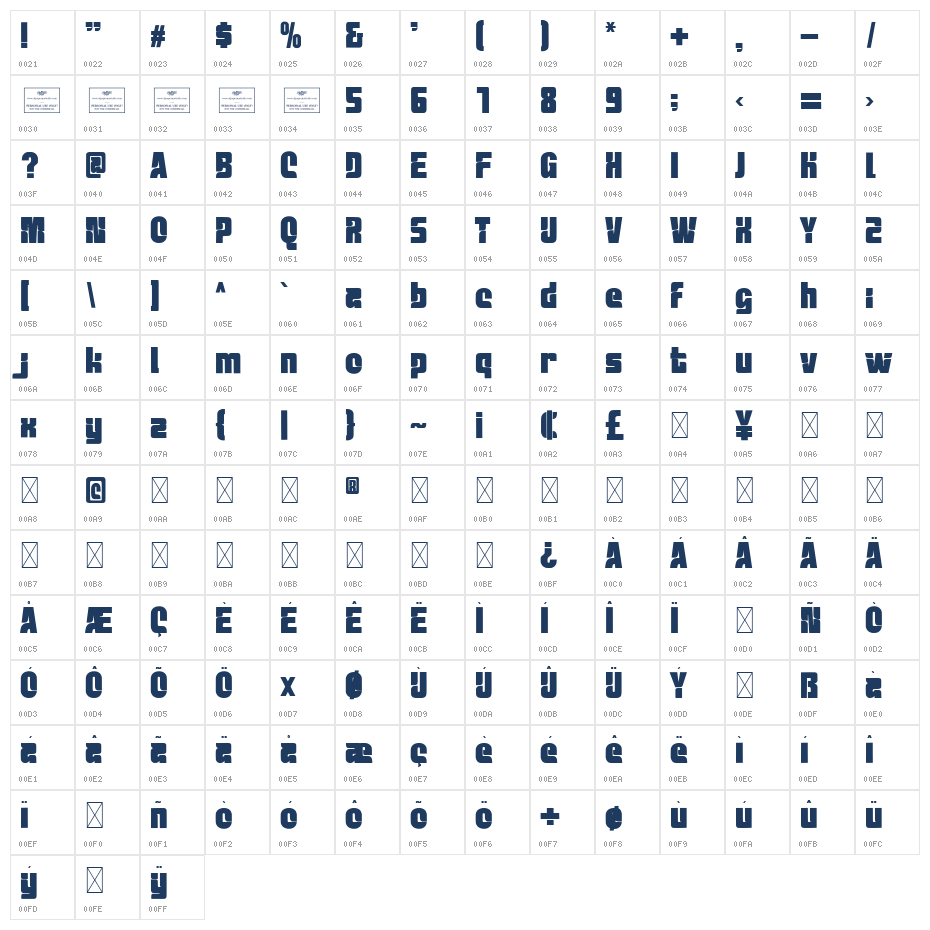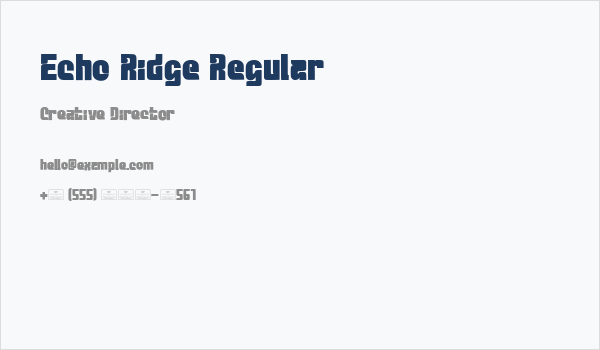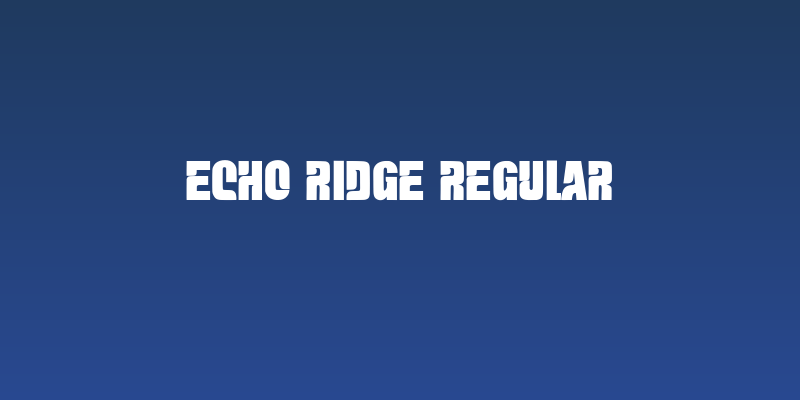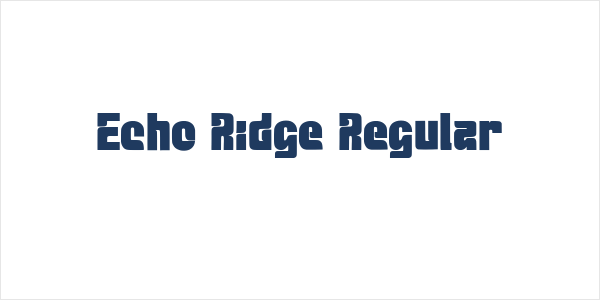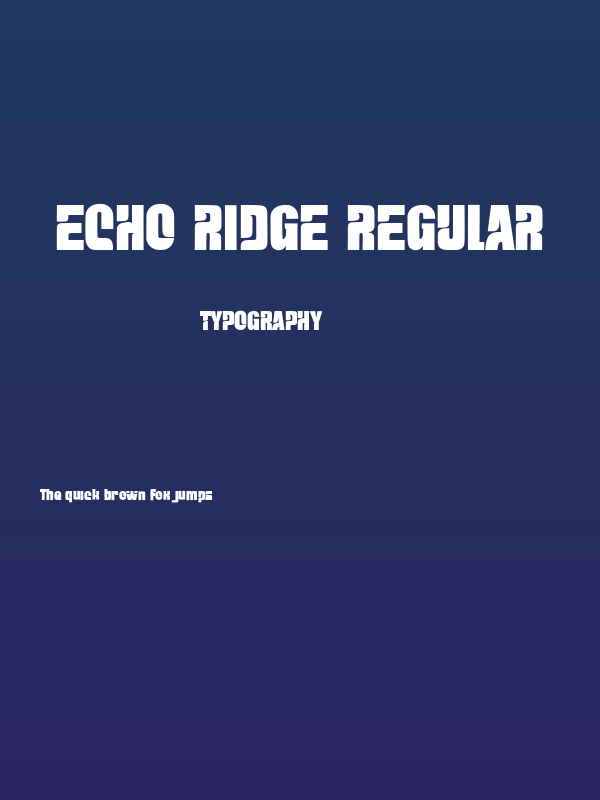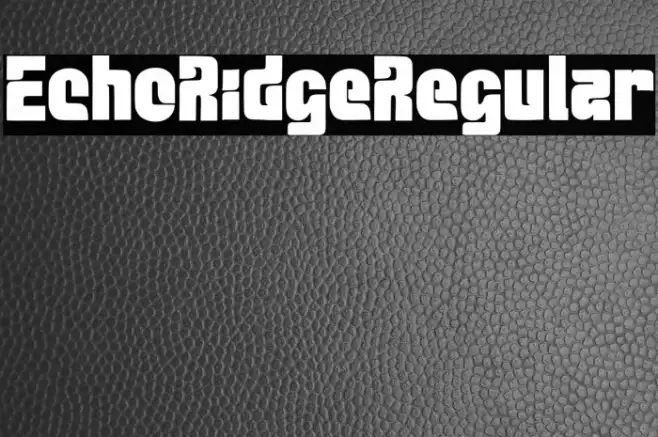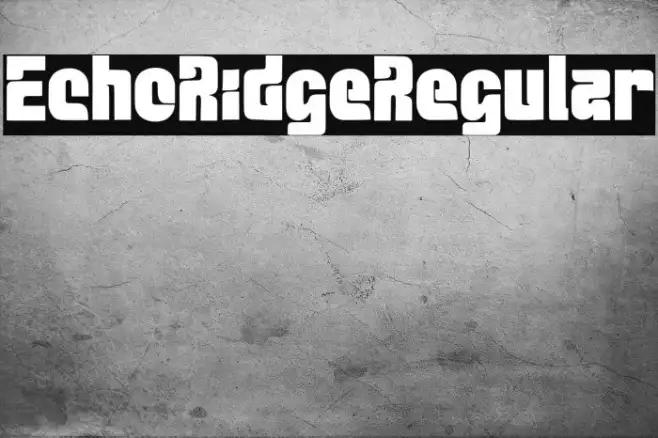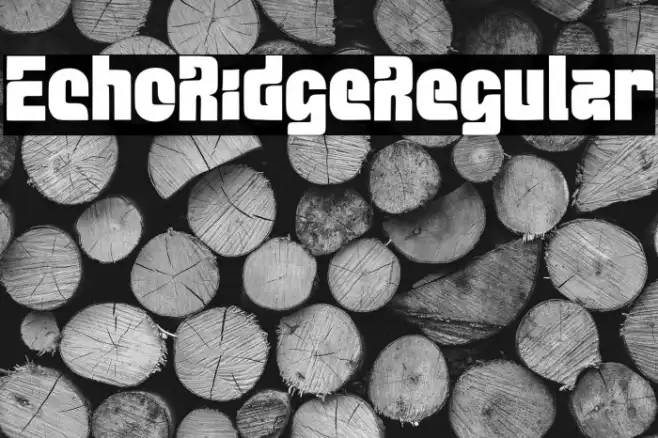
Echo Ridge Regular Font
Echo Ridge Regular Description
Bold, blocky, geometric sans-serif font with a stencil-like appearance, characterized by thick strokes and cut-out sections.
| Overall Style | Modern, Geometric, Industrial |
| Use Case | Headlines, Posters, Logos, Branding |